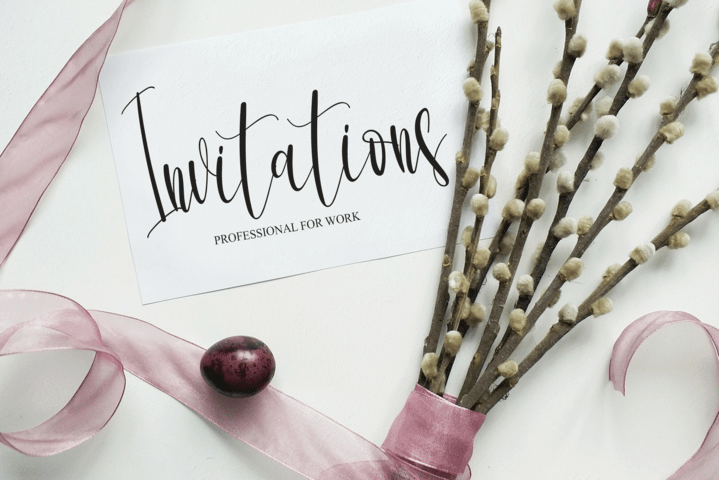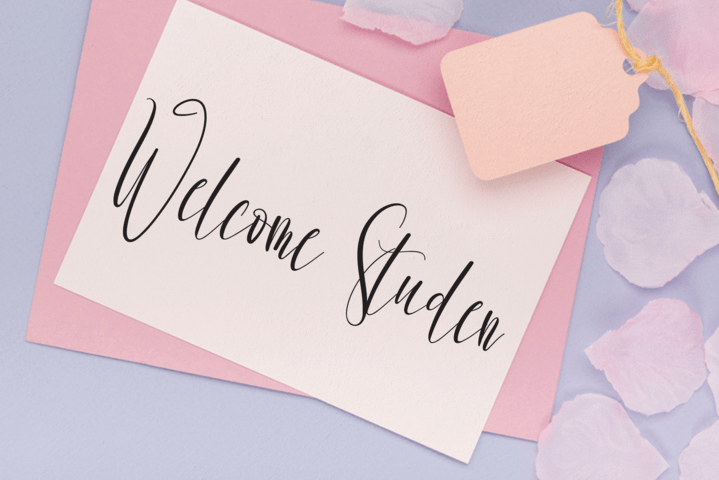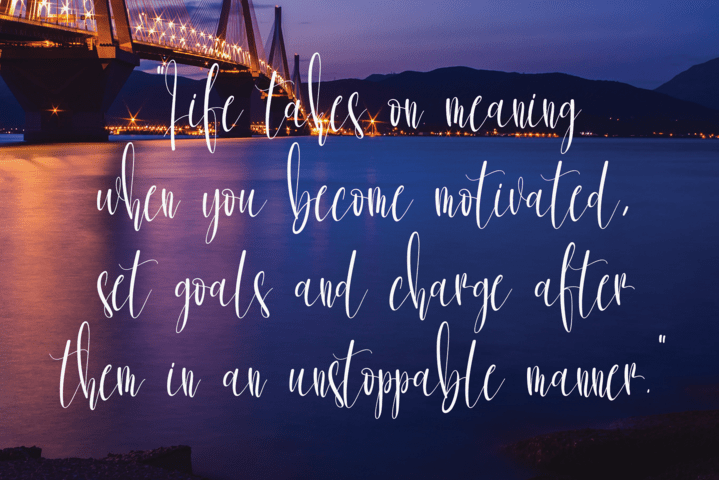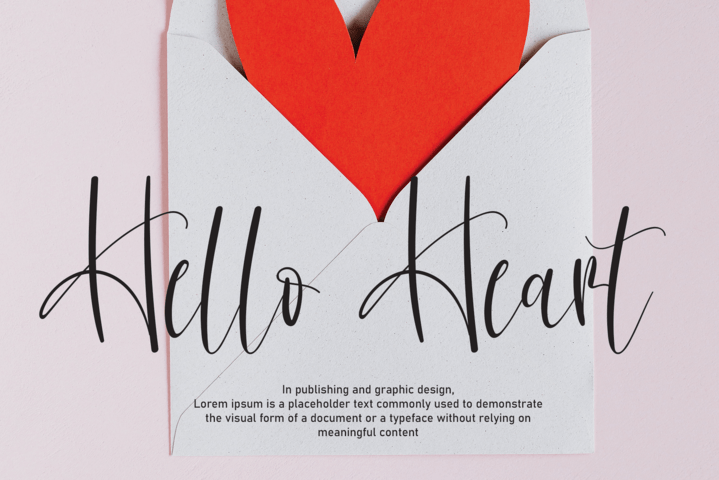
Winter Font
Winter Script Font
It’s a delicate and elegant handwritten font. Its distinct and well balanced letters make this font a masterpiece. Fall in love with its incredibly versatile style and use it to create spectacular designs!